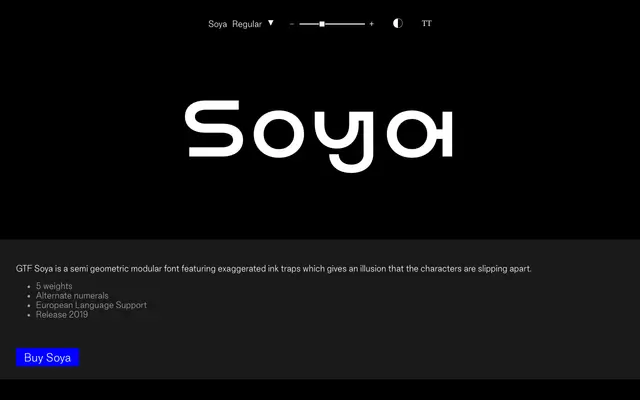
Soya
Good Type Foundry · 2019
A semi-geometric modular display face with exaggerated ink traps that give characters the appearance of pulling apart at the joints.
Released in 2019, GTF Soya uses a modular construction with deliberately oversized ink traps to create the optical illusion that letterforms are slipping away from themselves. The family spans five weights and includes alternate numerals alongside broad European language support through 172 accent glyphs. The effect is best used at large sizes where the ink trap drama reads clearly.
Described as semi-geometric and modular with exaggerated ink traps that create a visual splitting effect; the expressive, stylised construction places it firmly in the display category rather than a functional geometric sans.